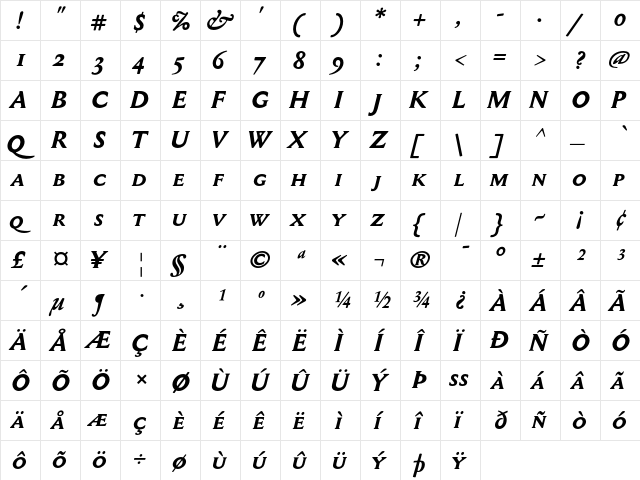
Mediaeval SC+OSF Bold Italic
Bold Italic · Frantisek Storm, www.stormtype.com  ·
Design Context for Mediaeval SC+OSF Typeface
Mediaeval SC+OSF offers clean, dependable letterforms without strong stylistic allegiance, making it a practical choice for designers who need flexibility. Its italic angle brings a sense of urgency and motion to the letterforms. The heavy weight commands attention and anchors typographic hierarchies.
Pro Tip: Try Mediaeval SC+OSF for annotation and caption copy alongside an upright companion — the contrast in angle creates a dynamic but ordered typographic system.